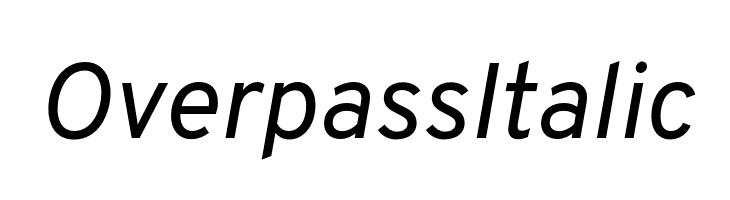
A modern, italic sans-serif font with clean lines and excellent readability.
A modern, italic sans-serif font with a sleek and dynamic appearance.
A clean, modern sans-serif font with geometric letterforms and uniform stroke width.
A modern, geometric sans-serif font with uniform strokes and clear characters.
A sleek, modern, and italic font with light strokes and normal spacing.
A sleek, modern sans-serif font with a light italic style.